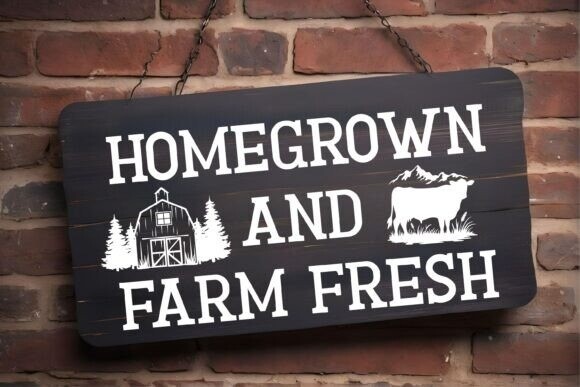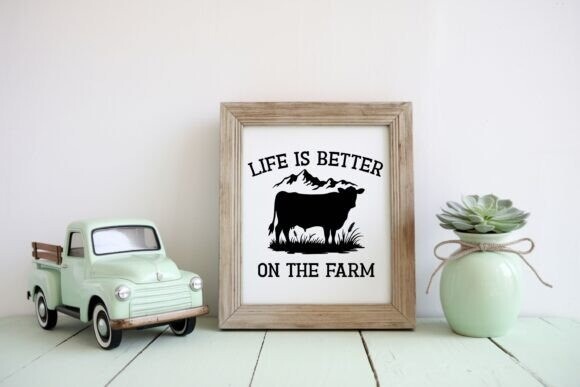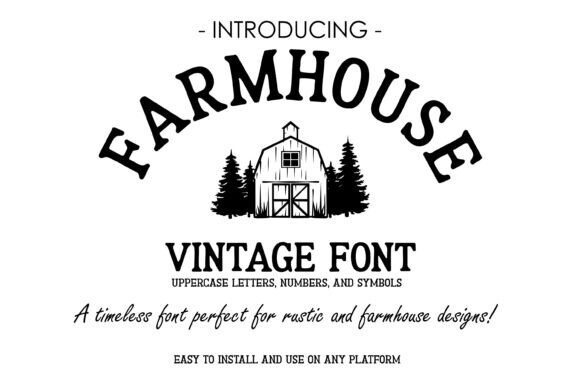
Farmhouse Vintage Font
Farmhouse Vintage Font a rustic serif font with a timeless farmhouse charm. With this font you can make t-shirts, mugs, logos, posters, planner prints, birthday cards, wall decals, car decals, stickers, wedding invitation, birthday party decorations, iron ons, print n’ cuts & more!